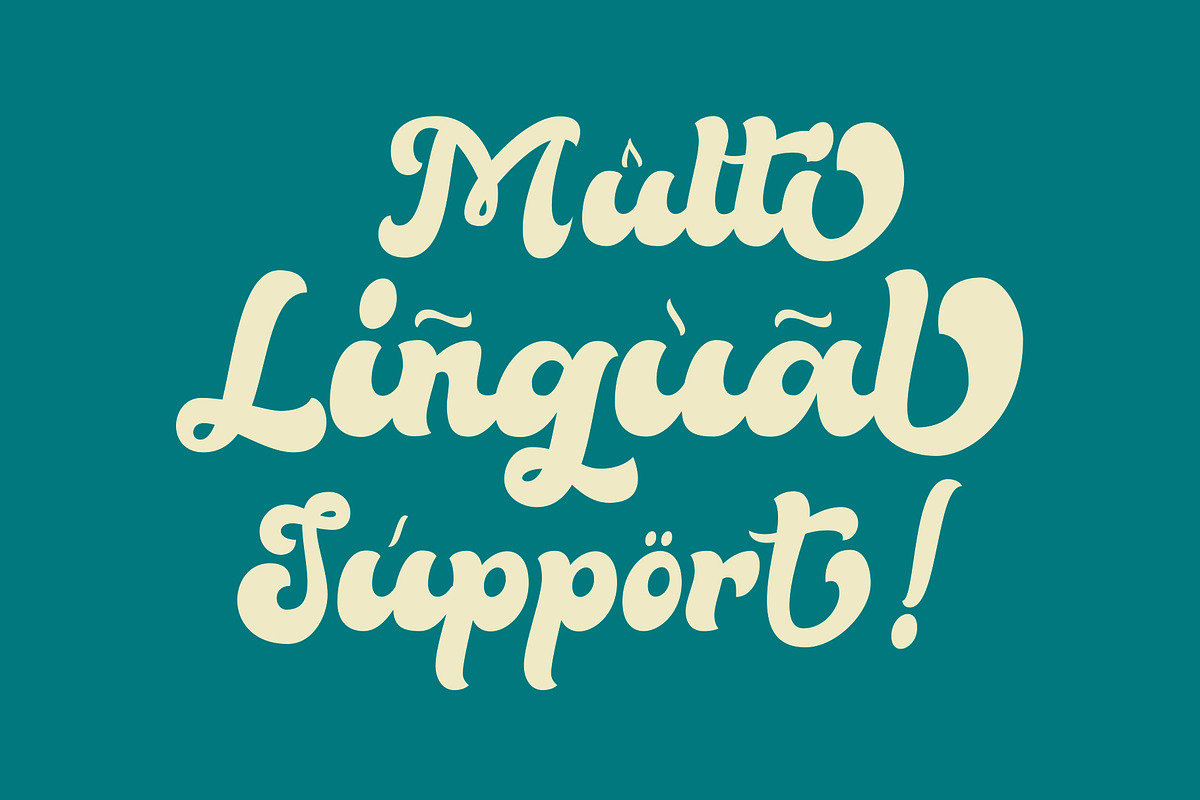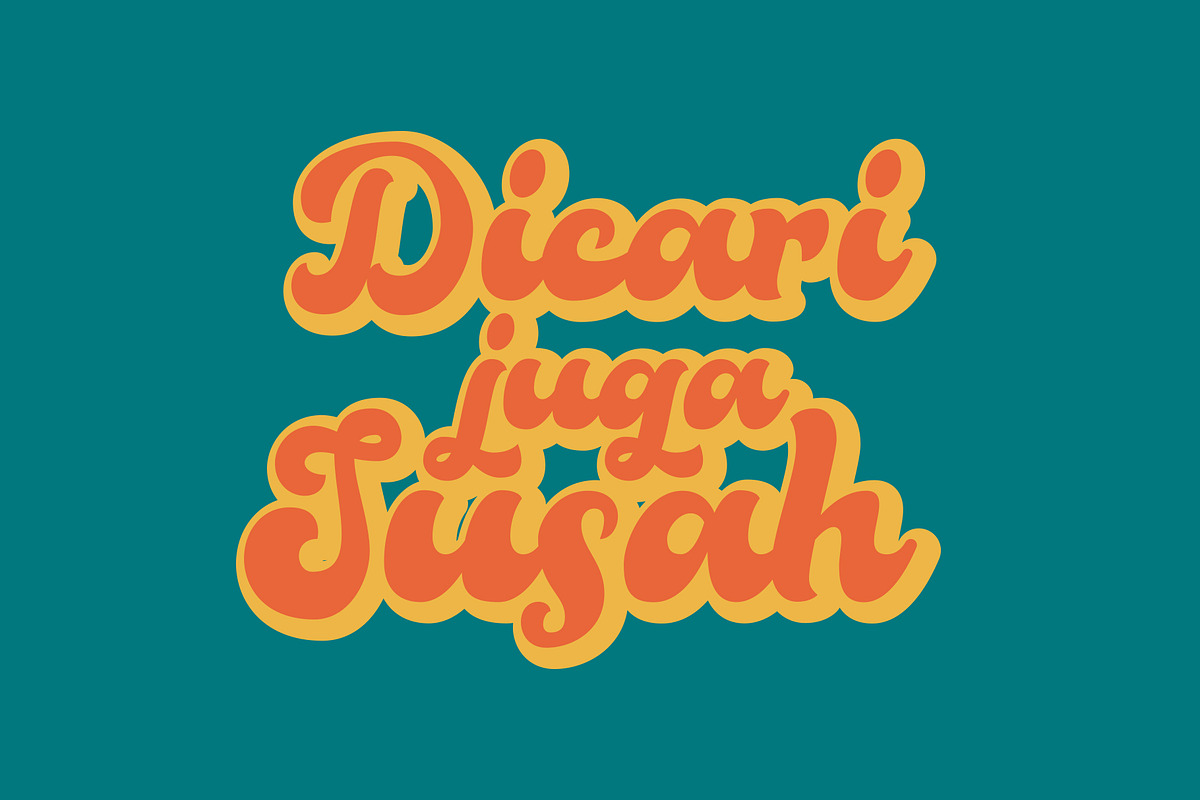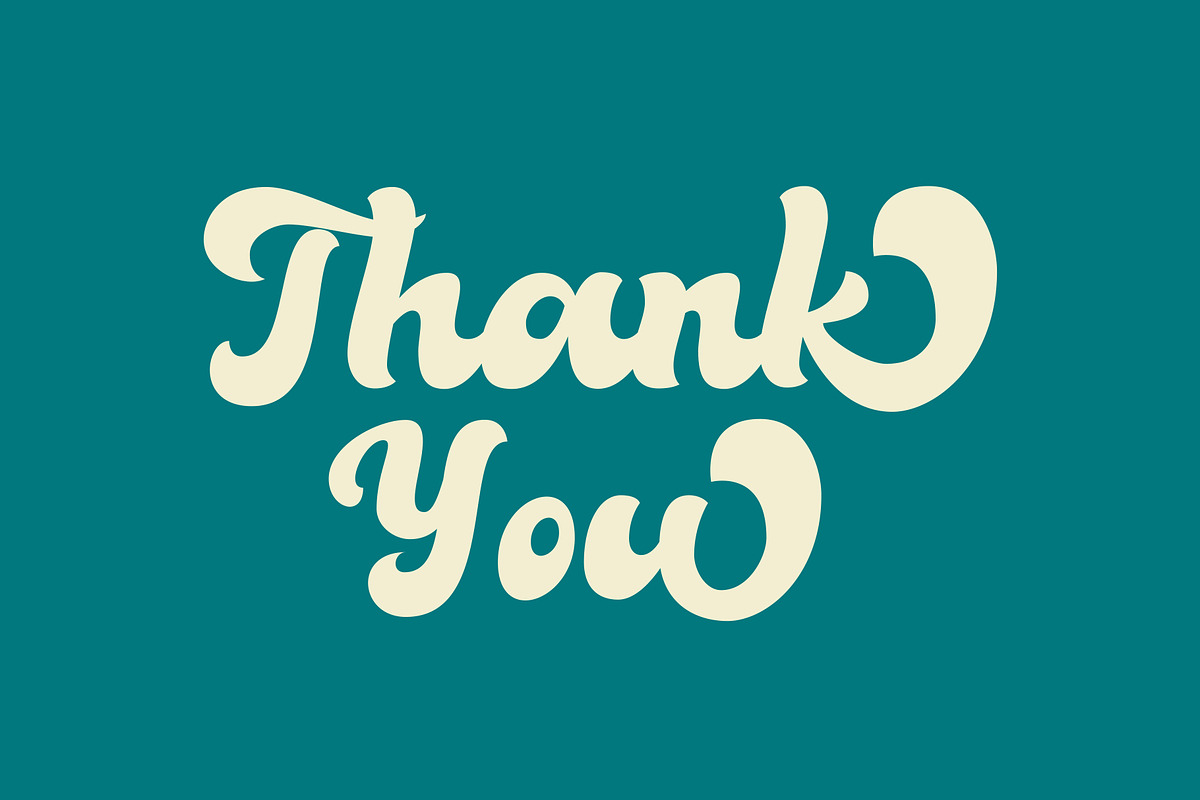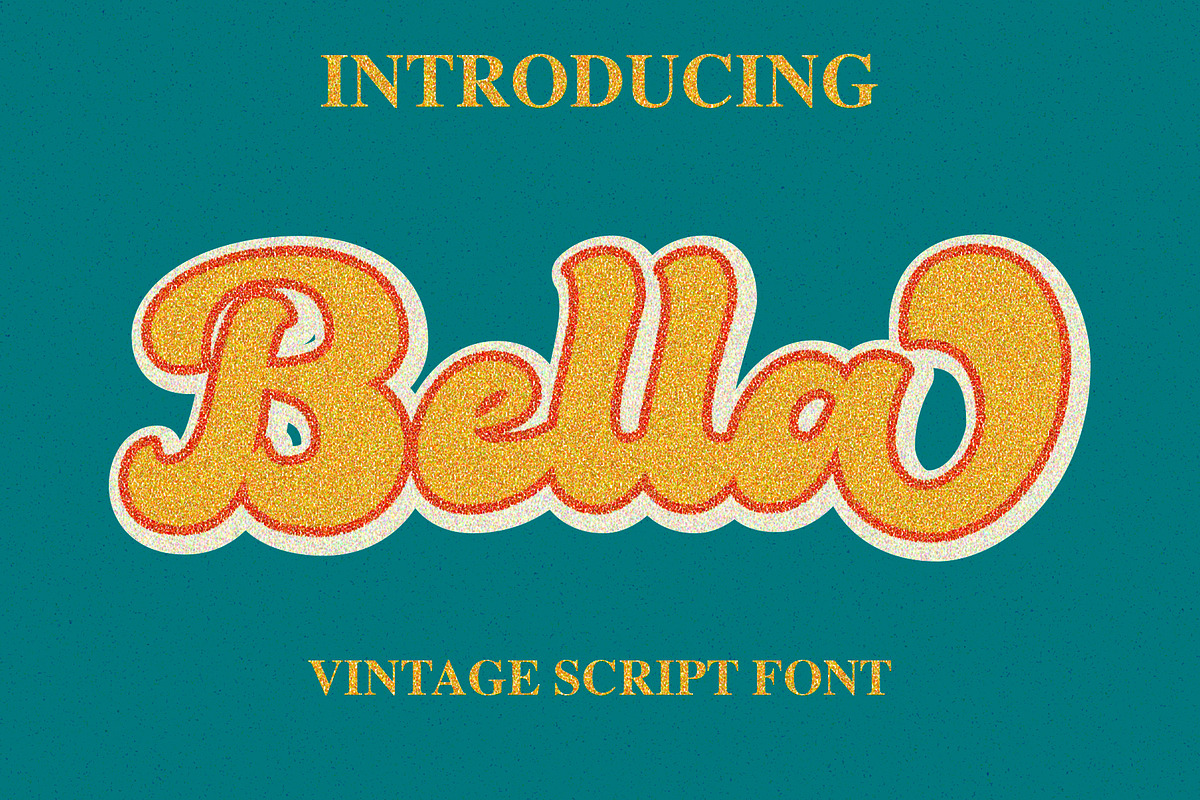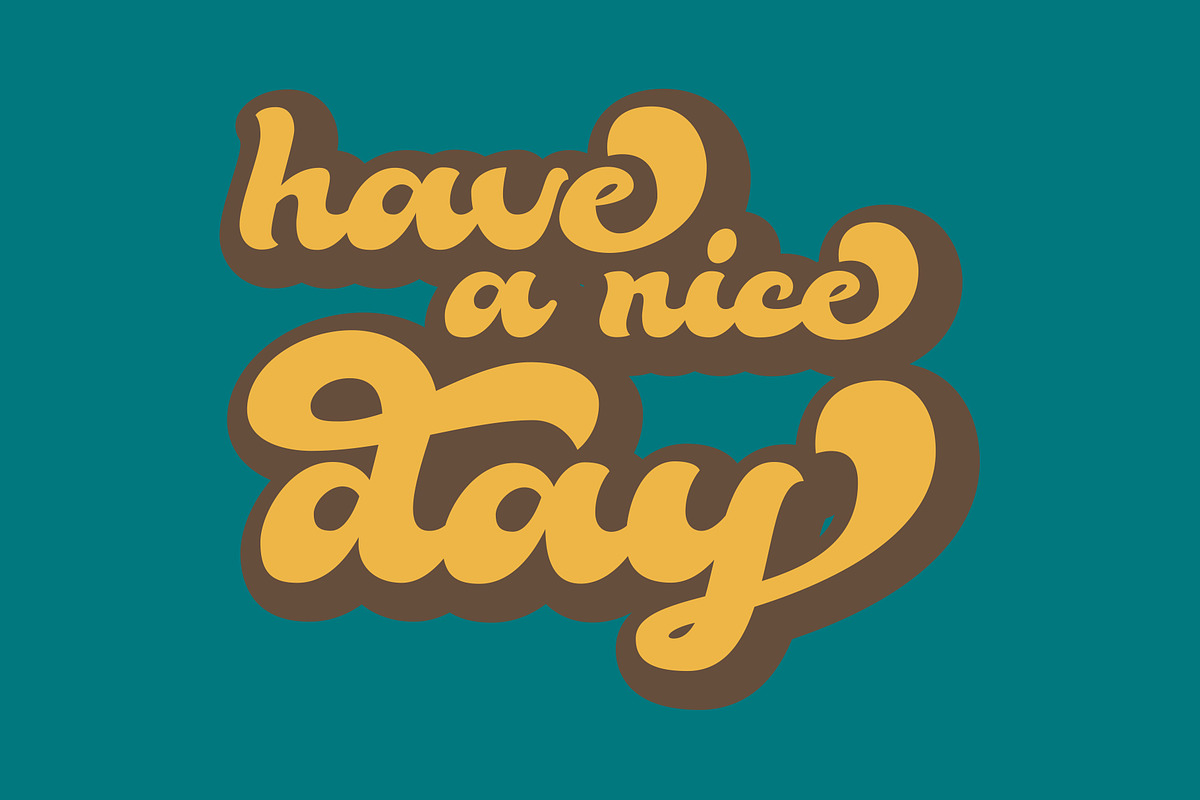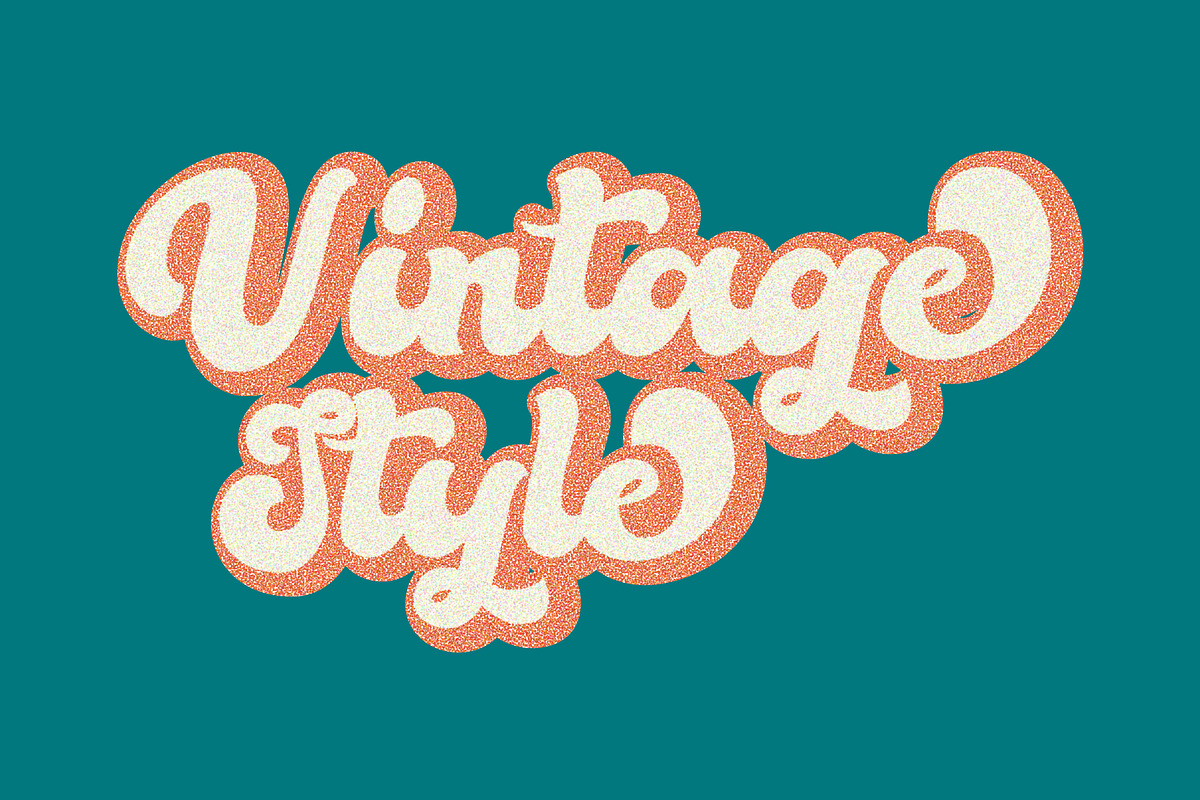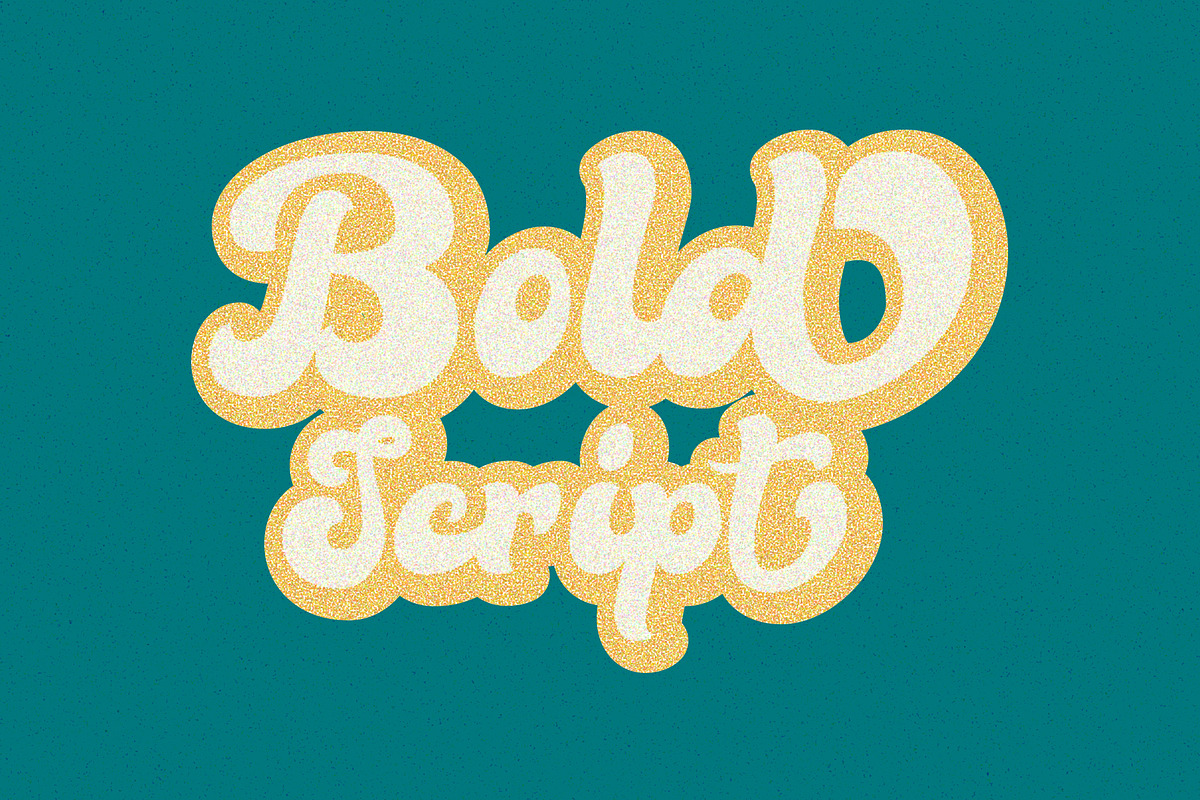
Bella - Vintage Script Font
Bella - Vintage Script Font is a script font with a bold and classy style, this font is great for your next creative projects such as album cover, quotes, and many other design project.Bella font is here to elevate your work to the highest level.
Bella comes with uppercase letters, lowercase alternative letters, numbers, punctuation, and multi lingual support